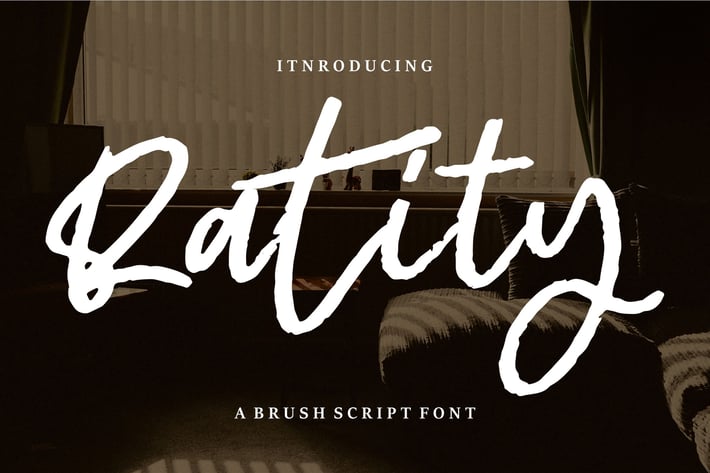
Ratity | A Brush Script Font
Ratity | A Brush Script Font with a calligraphy style, So beautiful on invitation like greeting cards, branding materials, business cards, quotes, posters, and more!